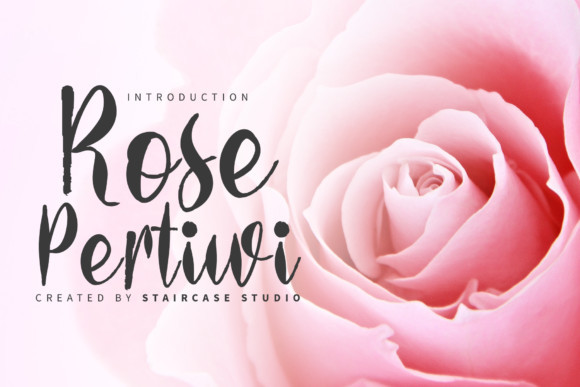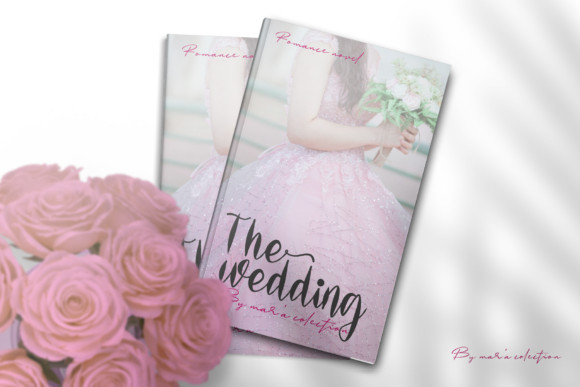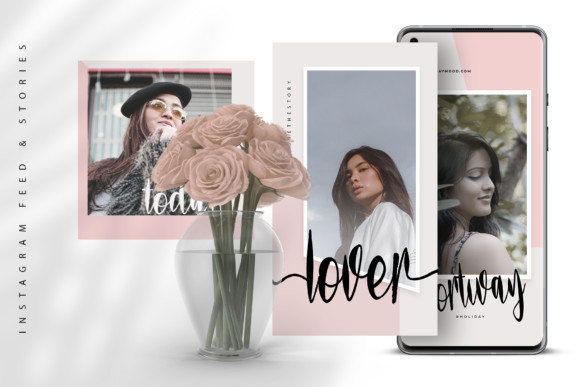
Rose Pertiwi Font
Rose Pertiwi FontRose Pertiwi is inspired by classic typography and brings its own unique style to any design project. Rose Pertiwi is the perfect font for making original and outstanding designs.
This font is PUA encoded which means you can access all of the cute glyphs and swashes with ease! It also features a wealth of special features including alternate glyphs and ligatures.